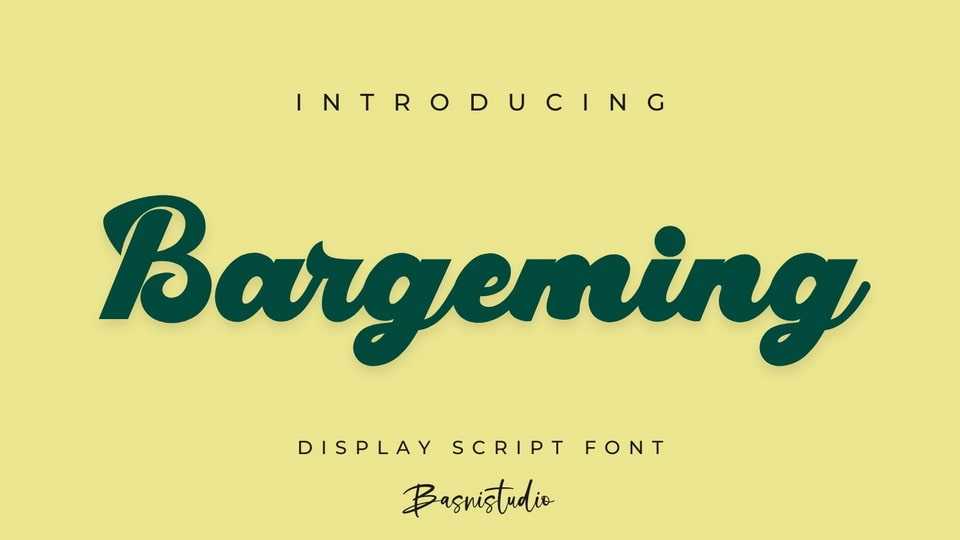
Download Bargeming font, a bold script typeface that captures the lively spirit of vintage signage and classic advertising with its sweeping curves and thick strokes.